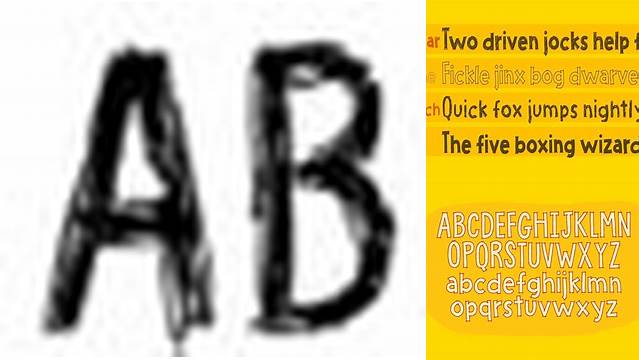
Friendly Yellow Scratch Font: Free Download Guide
Introduction to Friendly Yellow Scratch Font
Hey guys! Are you on the hunt for a font that's both friendly and unique? Look no further! The friendly yellow scratch font is here to add a playful and warm touch to your designs. This font style is perfect for projects where you want to convey a sense of fun, approachability, and creativity. Whether you're working on a children's book, a website for a daycare, or promotional materials for a summer festival, this font can help your message stand out. It's the kind of font that makes people smile, and in the world of design, that's a powerful asset. The unique scratched texture gives it a handmade feel, adding character and charm that digital fonts often lack. Imagine using this for greeting cards, posters, or even logos—the possibilities are endless! This font is not just about aesthetics; it's about creating an emotional connection with your audience. Its cheerful appearance can evoke feelings of nostalgia, joy, and comfort. This makes it an excellent choice for projects aimed at families, children, or anyone who appreciates a touch of whimsy. Plus, the distinctive yellow hue (or the suggestion of it) adds a vibrant pop of color, making your text instantly noticeable and memorable. In the following sections, we’ll dive deeper into what makes this font so special, where you can download it for free, and how to use it effectively in your projects.
Key Features and Design Elements
When we talk about the friendly yellow scratch font, we’re referring to a typeface that blends approachability with a hand-drawn aesthetic. This font typically features slightly imperfect lines, giving it a natural, almost handwritten feel. Think of it as the digital equivalent of a friendly scribble or doodle. The "scratch" element isn't about looking damaged or worn; rather, it's about mimicking the texture and character of ink on paper, or chalk on a blackboard. The subtle imperfections make each character unique, adding to the font’s overall charm and personality. The friendly yellow scratch font often includes rounded edges and soft corners, further enhancing its welcoming vibe. Sharp angles can sometimes feel aggressive or formal, but rounded shapes tend to be more inviting and playful. This makes the font particularly well-suited for projects that aim to create a positive and lighthearted impression. Another key design element is the use of varying line thicknesses. This isn't always the case, but many friendly yellow scratch fonts incorporate this to add visual interest and a sense of dynamism. Thicker lines might emphasize certain parts of a letter, while thinner lines create delicate details. This variation keeps the font from looking too uniform or predictable, contributing to its unique character. Furthermore, the "yellow" aspect hints at the color association—warm, cheerful, and optimistic. While the font itself doesn't have to be yellow (you can use any color you like), the name suggests a brightness and energy that the font style embodies. This makes it a fantastic choice for projects that need a splash of positivity. In terms of technical features, a good friendly yellow scratch font will include a full set of characters, including uppercase and lowercase letters, numbers, punctuation marks, and potentially even special symbols. This versatility ensures that you can use the font for a wide range of applications, from headlines to body text.
Why Choose a Scratch Font for Your Projects?
So, why should you pick a scratch font over other font styles? Well, the answer lies in the unique qualities it brings to the table. A scratch font, particularly one that's friendly and yellow-themed, offers a distinctive blend of personality and warmth that’s hard to find elsewhere. First and foremost, a scratch font adds a human touch to your designs. In a world dominated by sleek, digital perfection, the slight imperfections and hand-drawn feel of a scratch font can make your work stand out. It creates a sense of authenticity and connection, as if your message was personally crafted just for the viewer. This is especially valuable for projects that aim to build trust and rapport, such as personal blogs, handmade product businesses, or community events. Furthermore, the playful nature of a scratch font makes it ideal for projects targeting children or families. The whimsical characters and uneven lines can evoke feelings of nostalgia and fun, making your content more engaging and memorable. Think about using it for birthday invitations, children's books, or educational materials—it’s a fantastic way to capture attention and create a positive association with your brand or message. Beyond its aesthetic appeal, a scratch font can also help you convey a sense of creativity and originality. It shows that you're willing to think outside the box and embrace a less conventional style. This can be particularly beneficial for businesses or individuals who want to position themselves as innovative and forward-thinking. In addition, the texture of a scratch font can add depth and visual interest to your designs. The subtle lines and imperfections create a tactile quality, almost as if you could feel the texture of the ink on paper. This can be especially effective in print materials, where it can add a touch of sophistication and craftsmanship. Finally, a friendly yellow scratch font, in particular, can bring a sense of warmth and optimism to your projects. The association with the color yellow evokes feelings of happiness, energy, and positivity. This makes it a great choice for projects that aim to uplift and inspire, such as motivational posters, greeting cards, or promotional materials for sunny destinations.
Tips for Effective Use in Design Projects
Okay, guys, you've downloaded and installed your friendly yellow scratch font, and you're ready to unleash its charm on your design projects. But before you go wild, let's talk about some tips for using it effectively. After all, even the coolest font can fall flat if it's not used thoughtfully. One of the most important things to consider is context. A friendly yellow scratch font is inherently playful and informal, so it's best suited for projects that match that vibe. Think about children's books, party invitations, casual branding materials, or anything that needs a touch of whimsy. It's probably not the best choice for formal legal documents or serious corporate reports. Know your audience. Who are you trying to reach with your design? If your target audience is kids or families, a scratch font can be a fantastic way to connect with them. But if you're targeting a more professional or sophisticated audience, you might want to use it sparingly or choose a different font altogether. Legibility is another crucial factor. Scratch fonts, by their nature, tend to be less legible than cleaner, more traditional typefaces. The uneven lines and quirky shapes that make them so charming can also make them harder to read, especially at small sizes. So, use this font wisely and make sure your text is still readable. Stick to using it for headings, titles, or short bursts of text, rather than long paragraphs. Play with size and spacing. If you're using a scratch font for a headline or title, don't be afraid to go big! The larger size will make the font more legible and give it more impact. Also, pay attention to the spacing between letters and lines. Adding a little extra space can improve readability and give your design a more polished look. Contrast is key. A friendly yellow scratch font can really shine when it's paired with a contrasting font. Try using it for headings and titles, and then use a cleaner, simpler font for the body text. This will create a visual hierarchy and make your design more balanced. Color can also play a big role in how your font looks and feels. While the name suggests yellow, you don't have to stick to that color. Experiment with different colors to see what works best for your project. A bright, cheerful color can enhance the font's playful nature, while a more muted tone can give it a more sophisticated feel. Don't overuse it. As much as you love your new scratch font, resist the urge to use it for everything. Overusing any font can make your design look cluttered and overwhelming. Use it strategically to highlight key elements and add personality, but don't let it dominate your entire design. Think about the overall design aesthetic. Your font should complement the other elements of your design, such as the colors, images, and layout. Make sure everything works together to create a cohesive and visually appealing result. Finally, don't be afraid to experiment! The best way to learn how to use a friendly yellow scratch font effectively is to play around with it and see what works. Try different sizes, colors, pairings, and layouts to discover its full potential.
Conclusion: Unleash Your Creativity
So, there you have it, guys! Everything you need to know about the friendly yellow scratch font, from its unique features and design elements to where you can find free downloads and how to use it effectively in your projects. This font is a fantastic tool for adding a touch of warmth, playfulness, and personality to your designs. Its hand-drawn aesthetic and cheerful vibe make it perfect for a wide range of applications, from children's books and party invitations to casual branding materials and creative posters. But remember, the key to using any font effectively is to consider the context, legibility, and overall design aesthetic. A friendly yellow scratch font is a powerful way to make your designs stand out, but it's important to use it thoughtfully and strategically. Pair it with contrasting fonts, experiment with colors and spacing, and don't be afraid to get creative! By following the tips and guidelines we've discussed, you can unleash the full potential of this font and create designs that are both visually appealing and emotionally engaging. Whether you're a seasoned designer or just starting out, a scratch font can be a valuable addition to your font library. It's a versatile and expressive typeface that can help you convey a wide range of emotions and messages. So, go ahead, download that friendly yellow scratch font, and start creating something amazing! The world of design is constantly evolving, and new fonts are being created all the time. By exploring different styles and techniques, you can develop your own unique design voice and create work that truly reflects your personality and vision. Don't be afraid to take risks, try new things, and most importantly, have fun with it! Design should be an enjoyable and rewarding process, and the right font can make all the difference. So, go out there and unleash your creativity. The possibilities are endless!